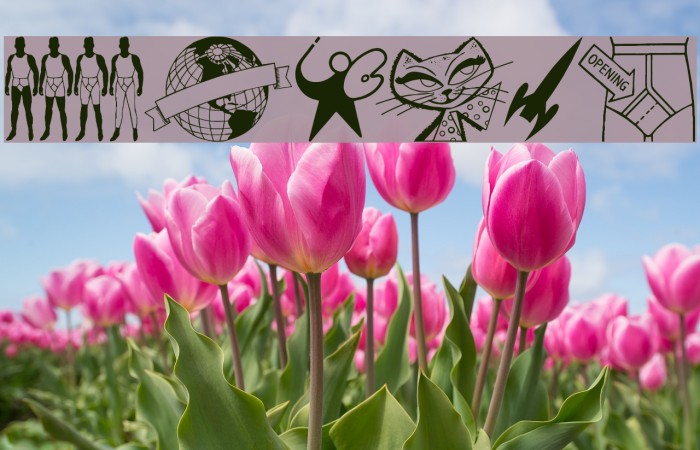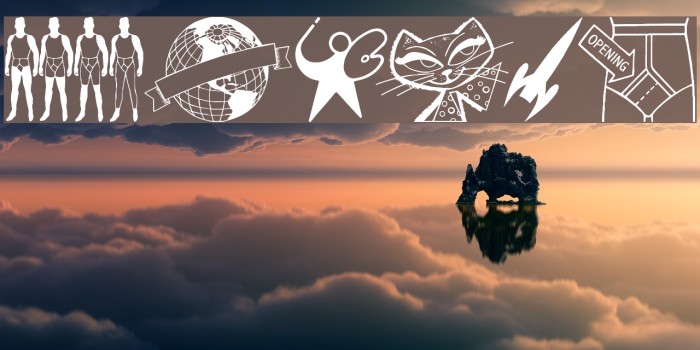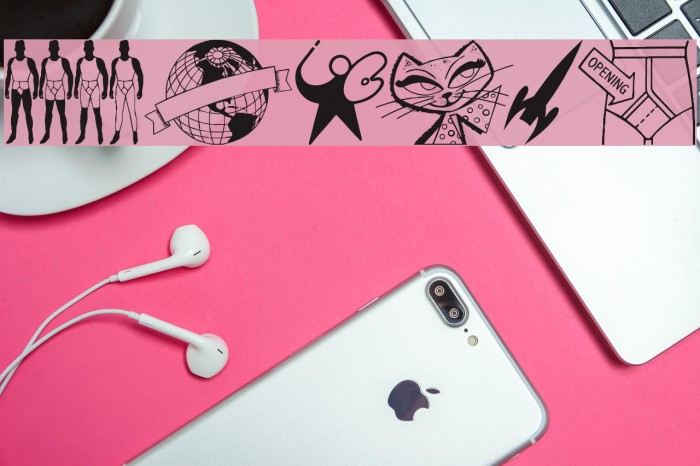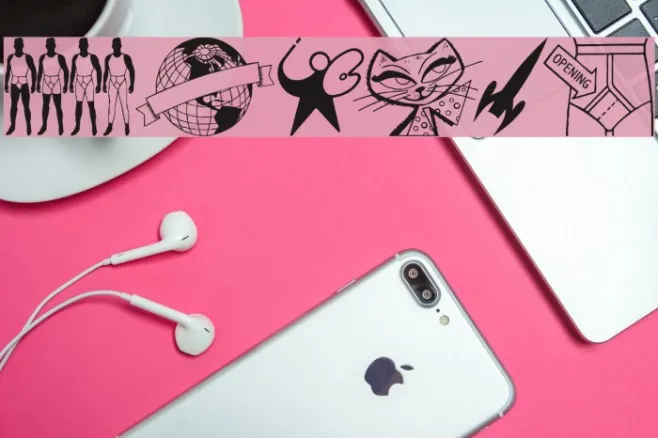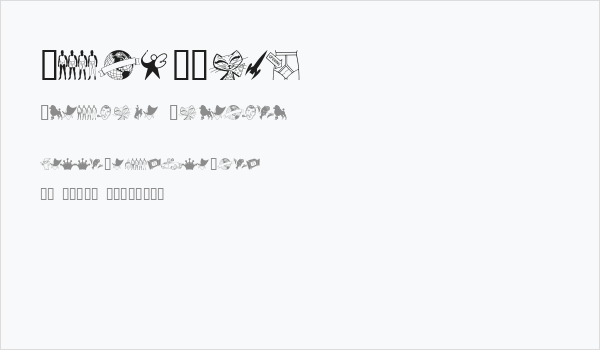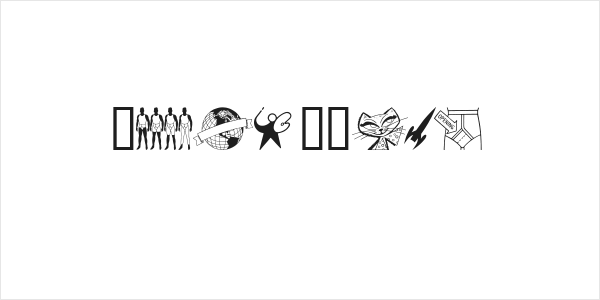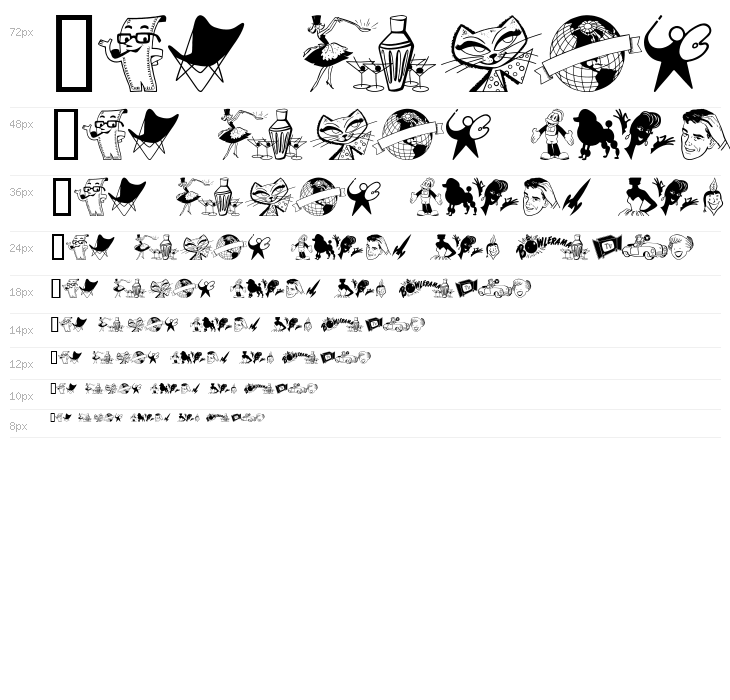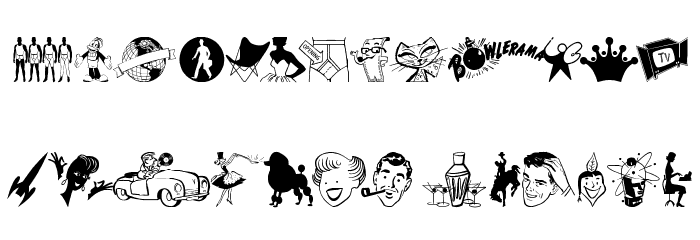
TackODing Font
TackODing Description
A decorative dingbat font featuring a variety of retro, mid-century illustrations such as people, objects, and stylized symbols. Each character is replaced by a unique black-and-white cartoon or icon, evoking a 1950s-1960s aesthetic.
| Overall Style | Decorative, Retro, Mid-century |
| Use Case | Decorative elements, Themed graphics, Scrapbooking |
| Proposed Projects | Vintage posters, party invitations, themed event graphics, scrapbooking, retro branding. |